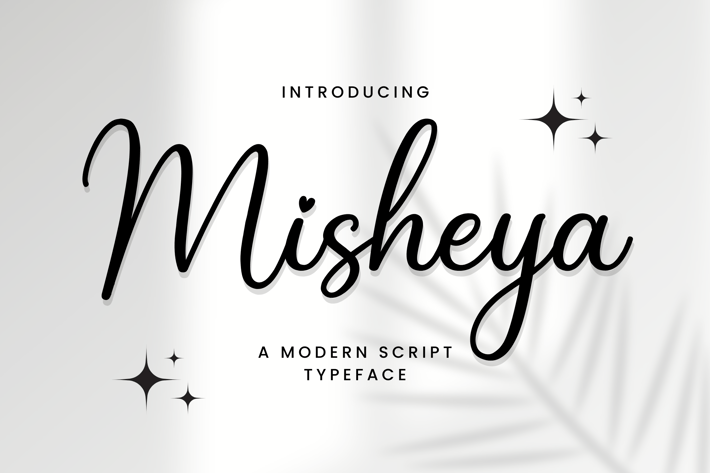
Misheya - A Modern Script Typeface
Misheya is a testament to the harmonious fusion of modern design and timeless script elegance. This contemporary script typeface is meticulously crafted to bring a sense of sophistication to your projects while maintaining a fresh and trendy vibe.
With its fluid strokes and refined curves, Misheya adds a touch of grace to your visual storytelling.
Perfect for a variety of design applications, from branding to invitations, Misheya shines in its adaptability. The modern script is not just about letters; it's about creating an experience.
Misheya effortlessly transforms words into visual poetry, making it an ideal choice for those who seek a balance between classic charm and contemporary flair.